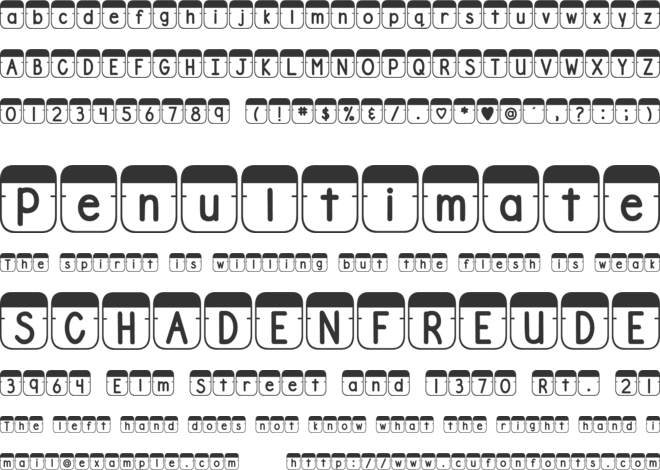
DJB File Folder Tabs Font
Darcy Baldwin
DJB File Folder Tabs is a font that lets you create a look of a file folder label with individual letters for product covers, book titles, games, tshirts and more!
DJB File Folder Tabs font preview